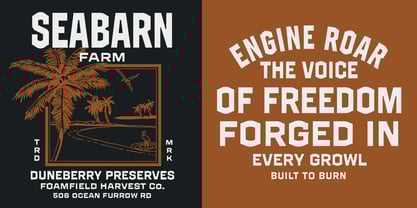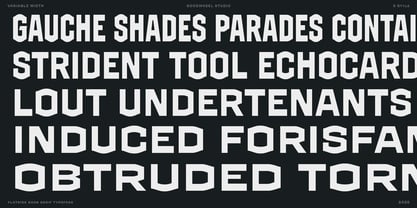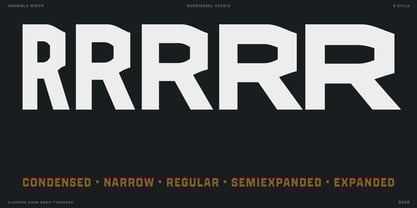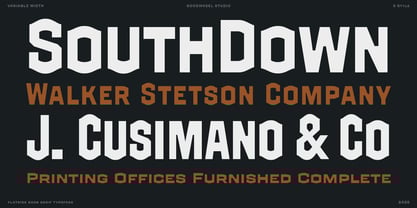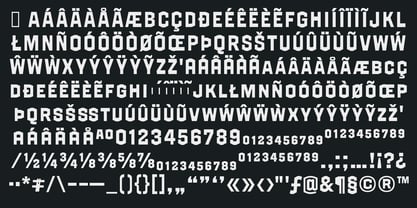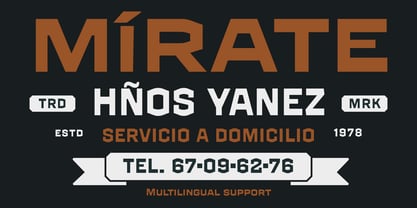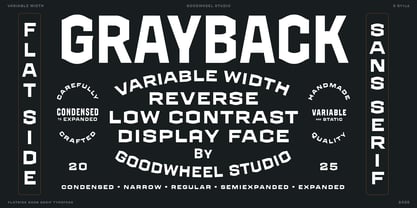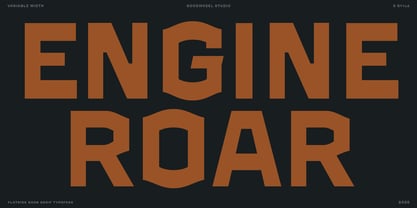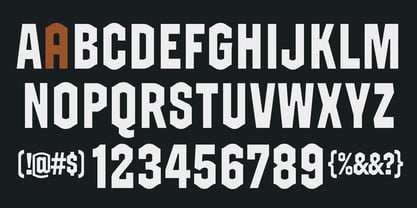
GW Grayback VF
by Goodwheel Studio
The GW Grayback VF Font Family was designed by Ilham Herry and published by Goodwheel Studio. GW Grayback VF contains 6 styles and family package options.
GW Grayback Variable is a flat-side sans serif typeface characterized by its subtle reverse contrast, making it an ideal option for bold headlines, posters, logos, and striking typography. This font features five distinct styles Condensed, Narrow, Regular, Semi Expanded, and Expanded as well as a fully adjustable variable font for tailored widths. Its versatility and unique design make it a standout choice for various print and digital design projects, catering to diverse creative needs.
GW Grayback VF